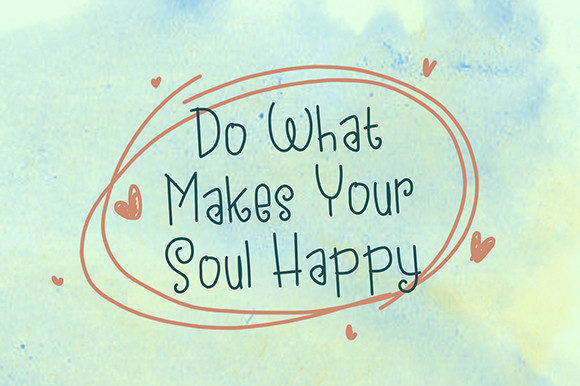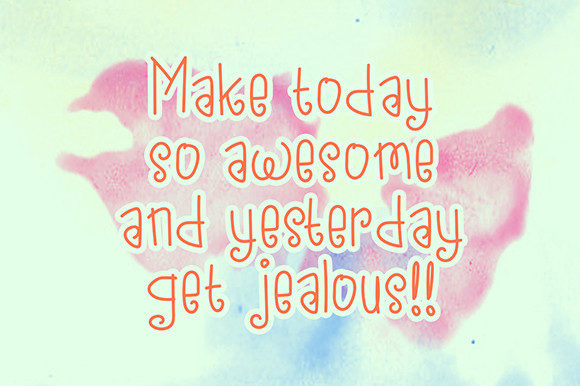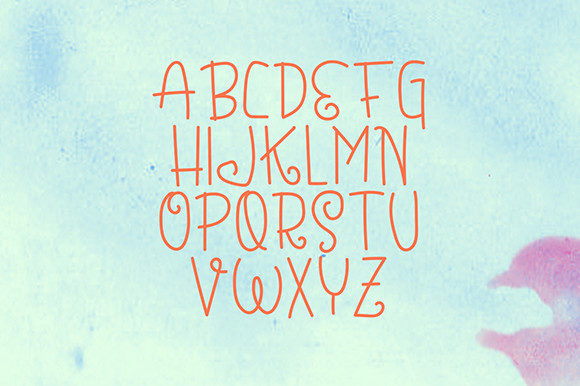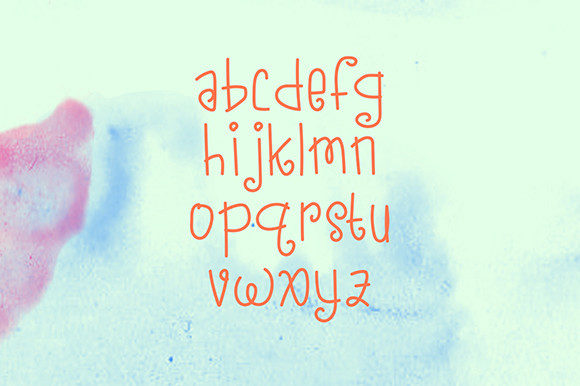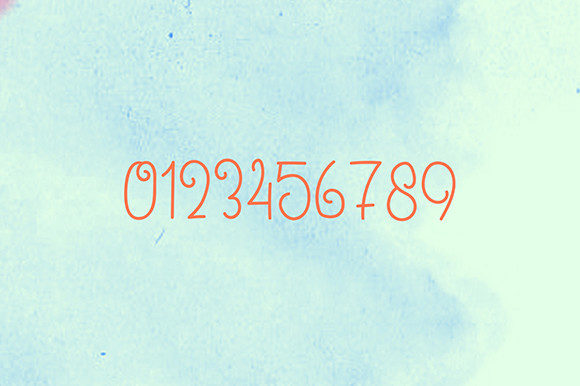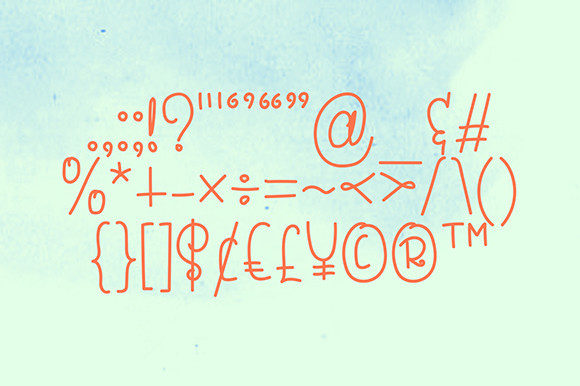
Introduction to Little Dreams Font
Little Dreams is a thin and simple handwritten font.
This gentle font will look gorgeous on a variety of design ideas It will add a joyful and romantic touch to each of your projects.
Key Features of Little Dreams Font